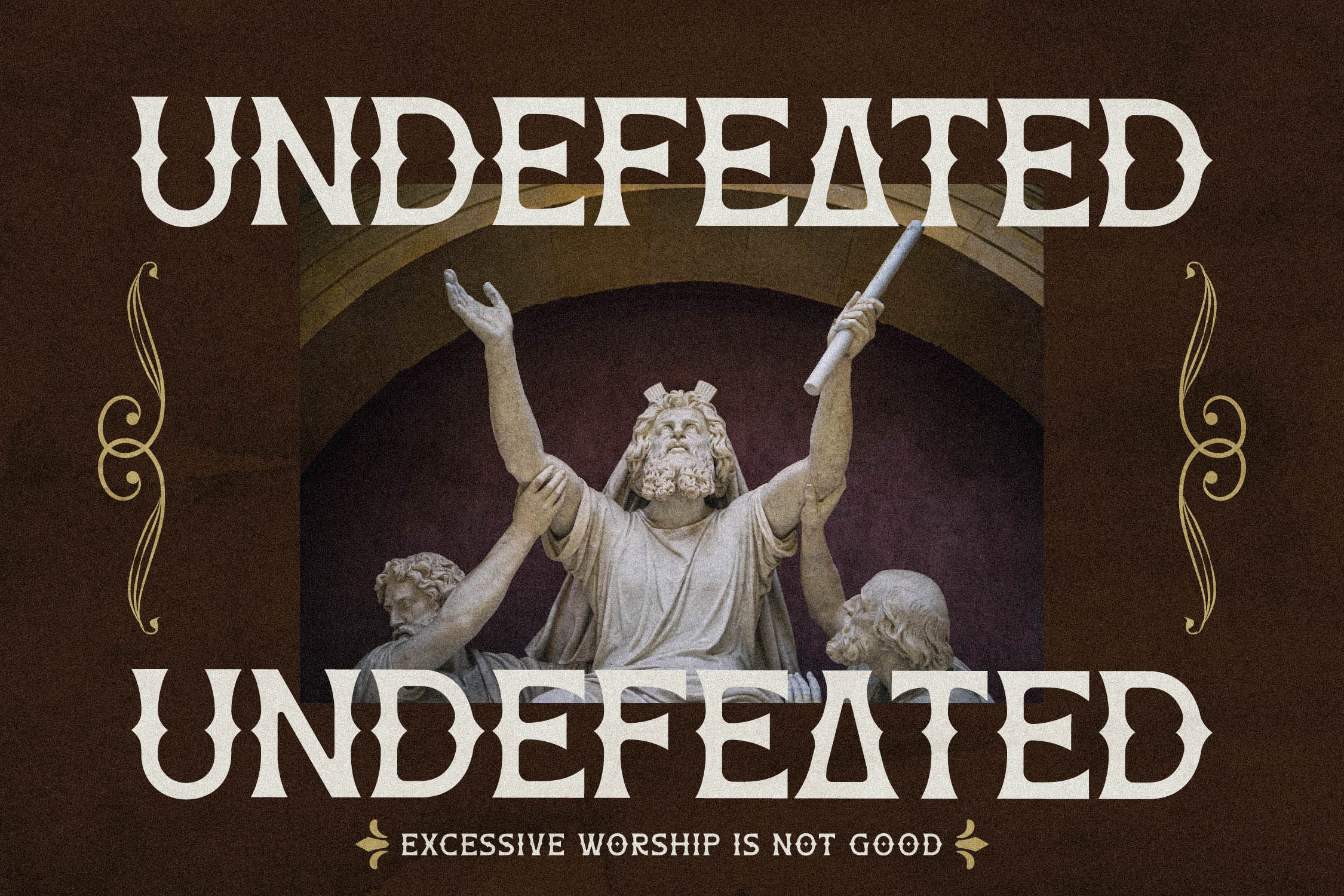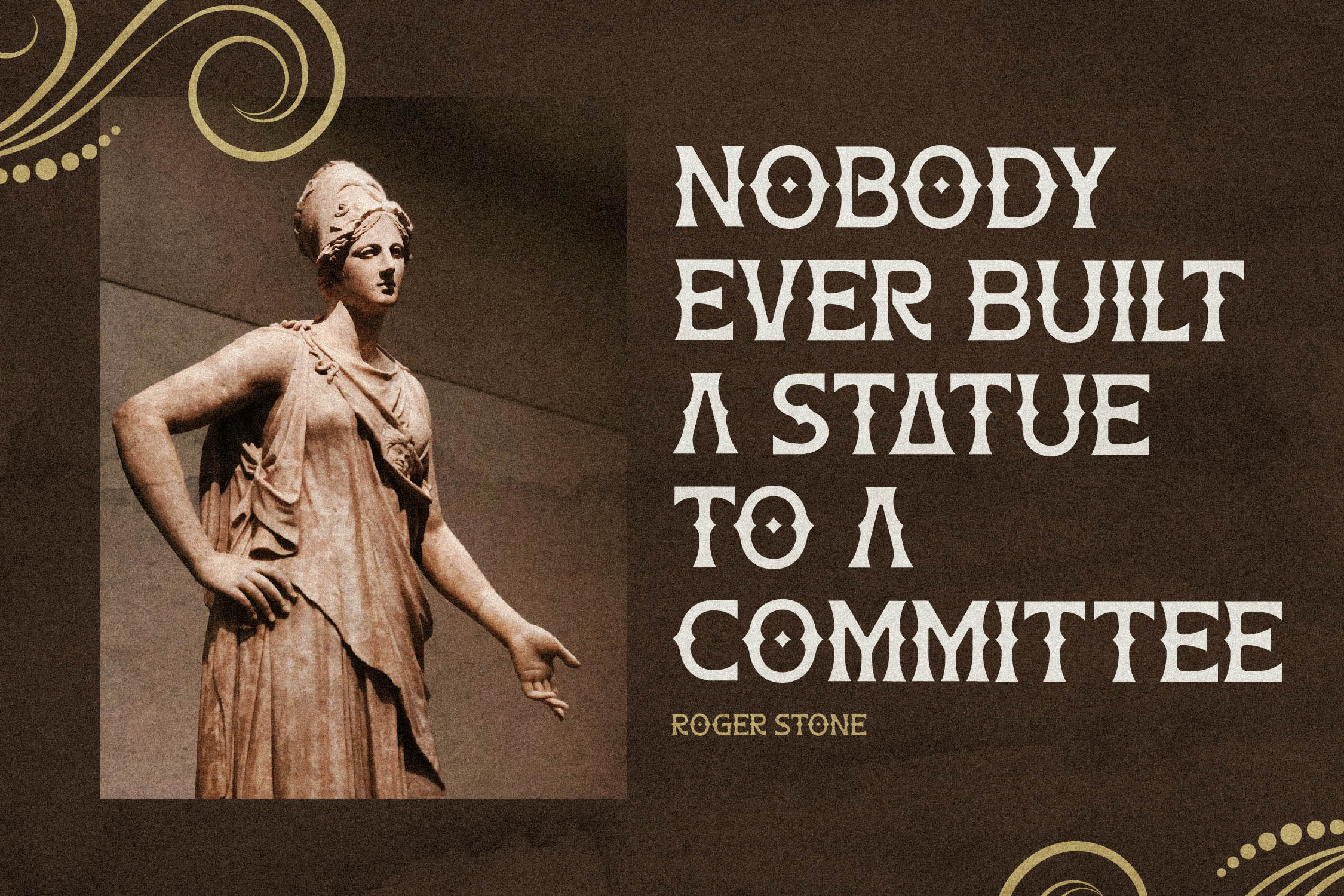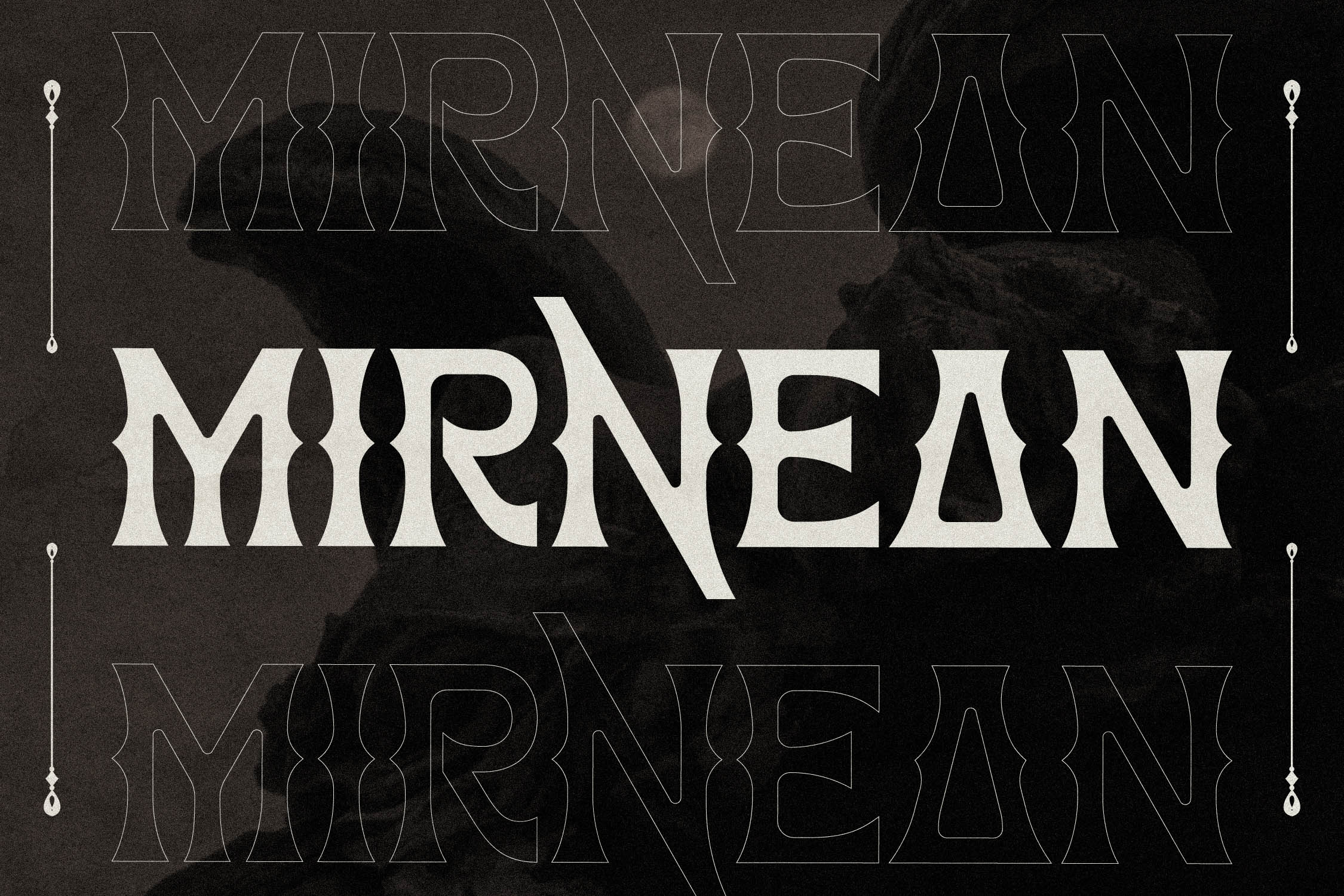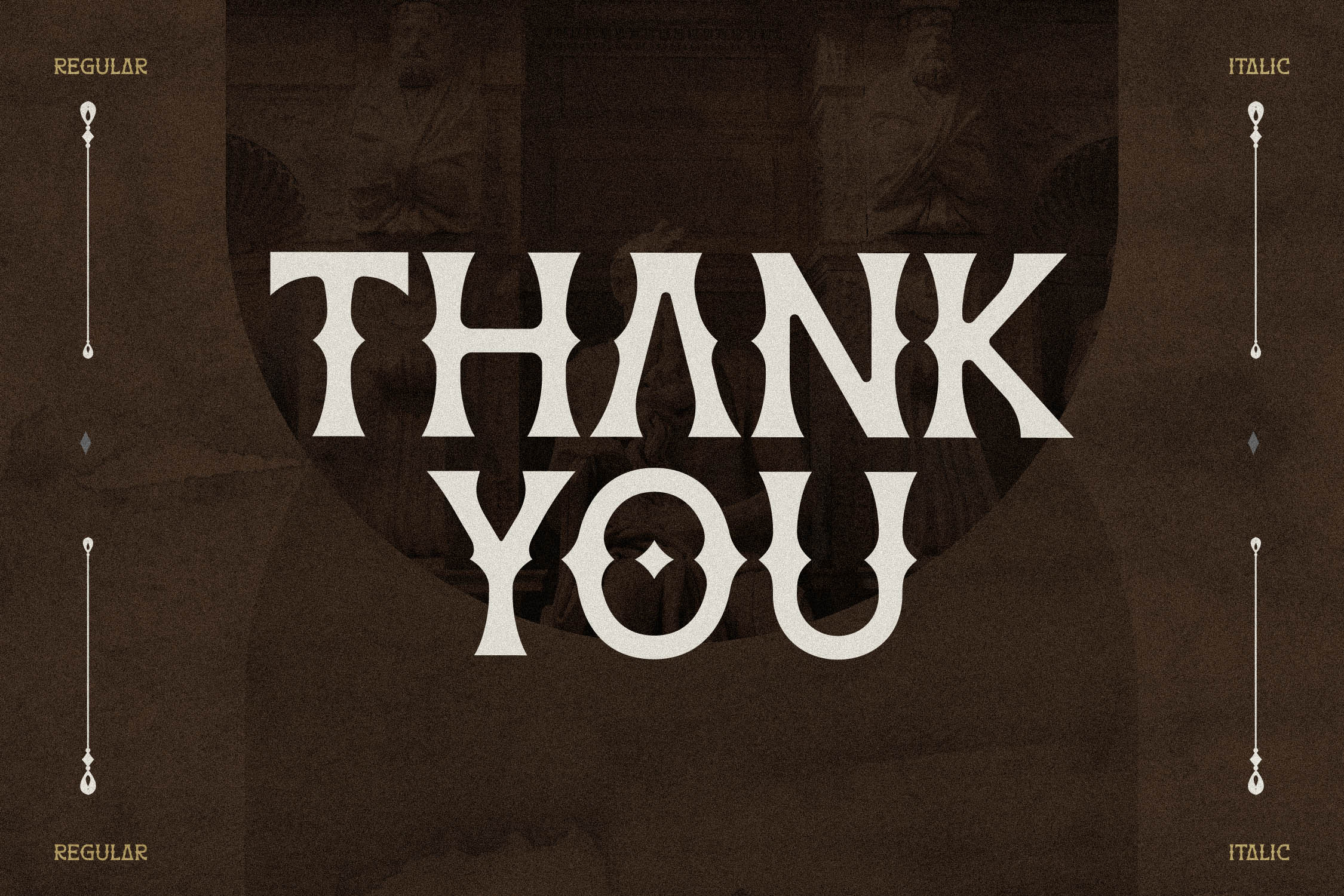
Mirnean Font
Mirnean Display Font is a serif modern and classic typeface that has own unique style & modern look. This typeface is perfect for an elegant & luxury logo, book or movie title design, fashion brand, magazine, clothes, lettering, quotes, and so much more.